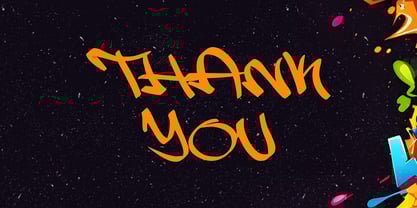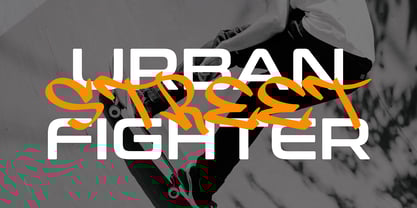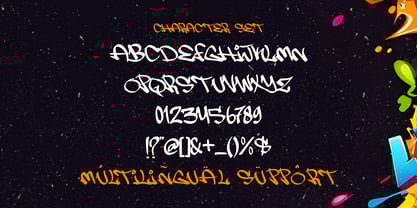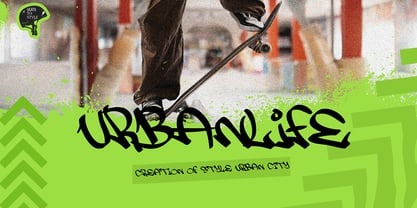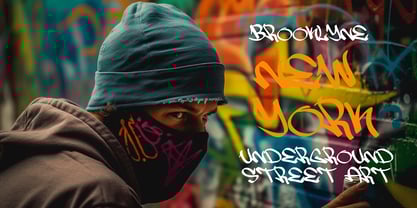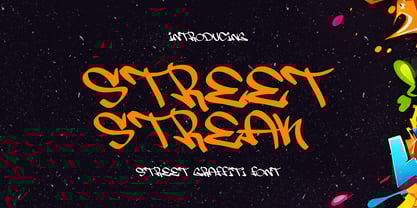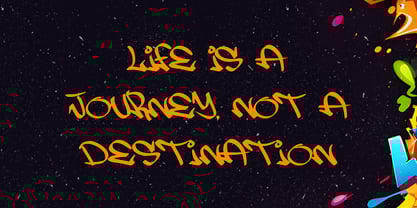
Street Streak
by Sipanji21
The Street Streak Font Family was designed by Sipanji and published by Sipanji21. Street Streak contains 1 styles. More about this family
Street Streak is a natural monoline graffiti font that captures the raw and expressive energy of street art. With its fluid strokes and hand-drawn aesthetic, this font brings an urban, edgy, and freestyle look to any design. Perfect for graffiti-inspired logos, streetwear branding, hip-hop posters, skate designs, album covers, and bold headlines, Street Streak delivers an authentic street-style vibe.
Its smooth, flowing lines and natural monoline structure make it versatile for both modern and artistic projects. Whether you're aiming for a raw, rebellious look or a stylish urban feel, Street Streak adds personality and attitude to your typography.